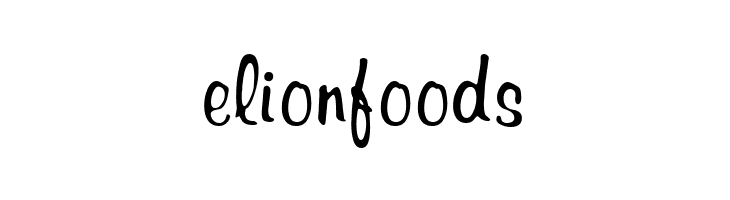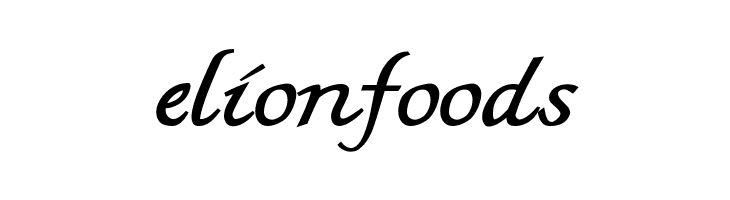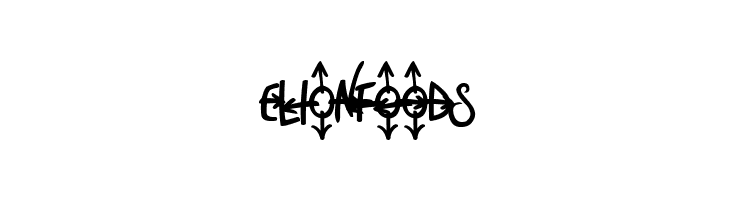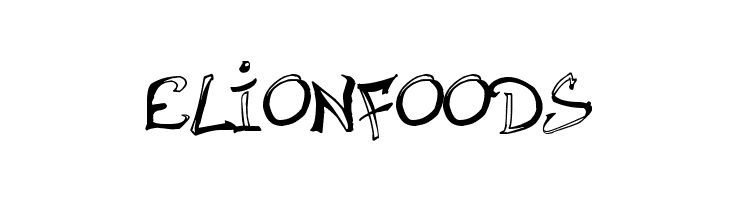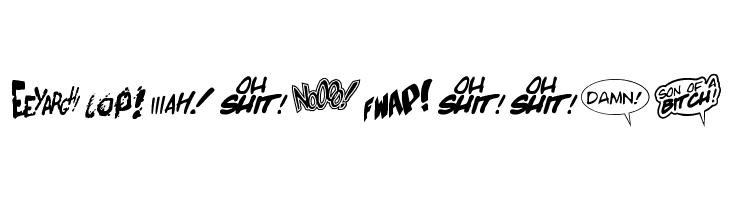
A playful, handwritten font with tall, narrow letters and a casual style.
A decorative, distressed font with jagged, graffiti-like uppercase letters.
A classic, elegant script font with flowing, cursive letters and intricate flourishes.
An artistic script font with flowing, interconnected letters and whimsical flourishes.
A playful, energetic font with tall, narrow letters and a slight slant.
A bold, dynamic comic book style font with exaggerated letterforms.